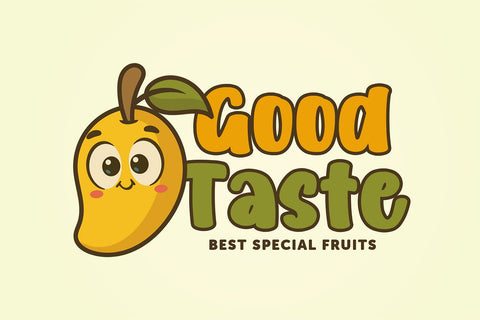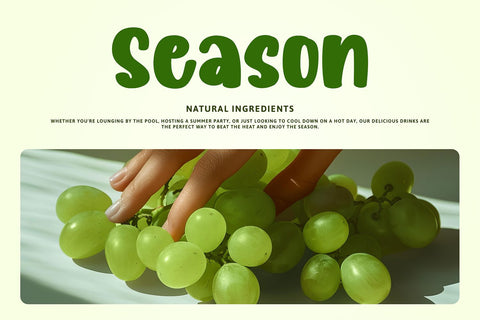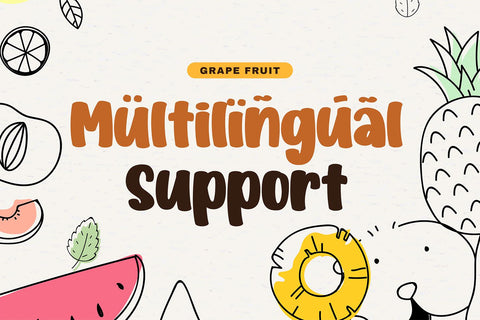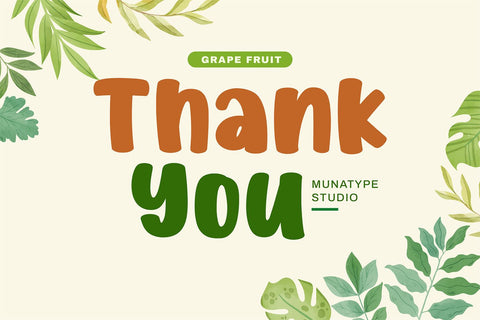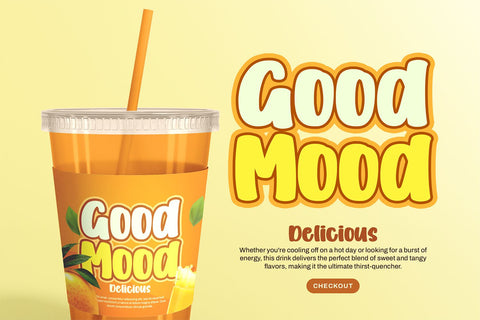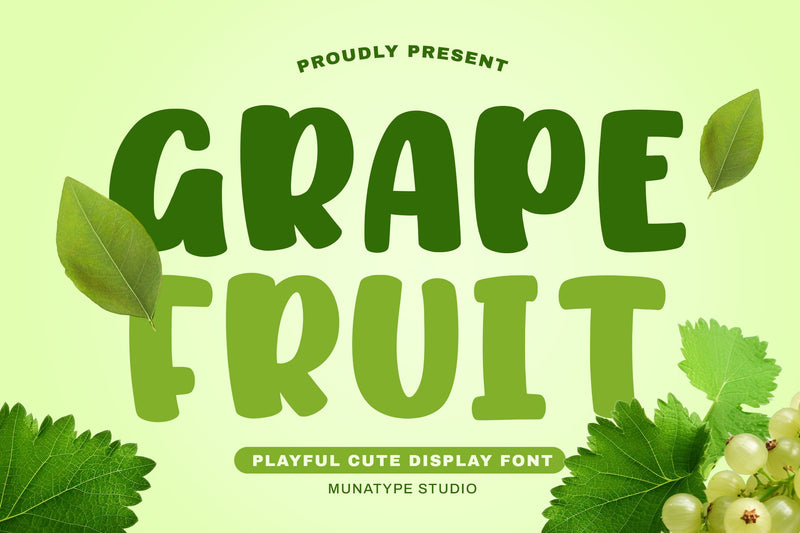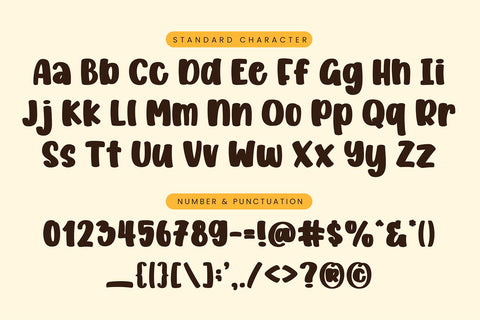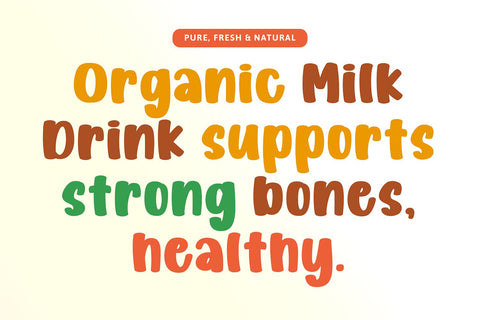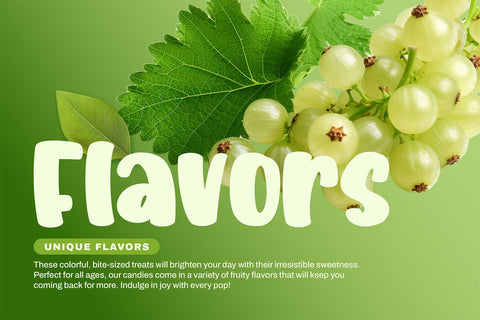
Grapefruit
Grapefruit font bursts with charm and character, combining boldness and playfulness into a versatile display font. Designed to instantly capture attention, this font is the ideal choice for creative projects that demand a touch of fun and freshness.
From food and beverage branding to vibrant packaging designs, Grapefruit font infuses every element with a whimsical energy that appeals to all ages. Its rounded, friendly shapes and bold presentation make it especially suitable for food logos, children’s products, and school-themed materials. Whether on posters, menus, or digital banners, it brings warmth and liveliness that stand out effortlessly.
Engineered to support diverse design needs, this font shines in both print and digital formats. It’s a natural fit for custom crafts, embroidery, and projects using cutting machines like Cricut or Silhouette. With its eye-catching style, Grapefruit enhances everything from handmade labels and greeting cards to packaging for snacks, drinks, and desserts.
In branding and advertising, Grapefruit font delivers high impact with a friendly twist. Perfect for logo design, clothing labels, magazine covers, and promotional materials, it creates a memorable visual identity that resonates with consumers. Its playful nature makes it ideal for seasonal campaigns, children’s apparel, and creative merchandise.
Explore the full potential of your designs with the delightful appeal of Grapefruit font. Make every project tastefully bold, irresistibly fun, and visually engaging. Let Grapefruit be the standout element in your next creative journey.